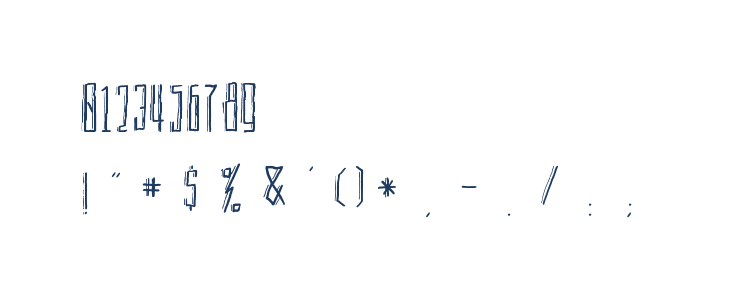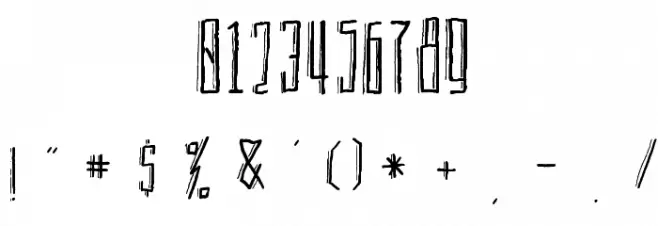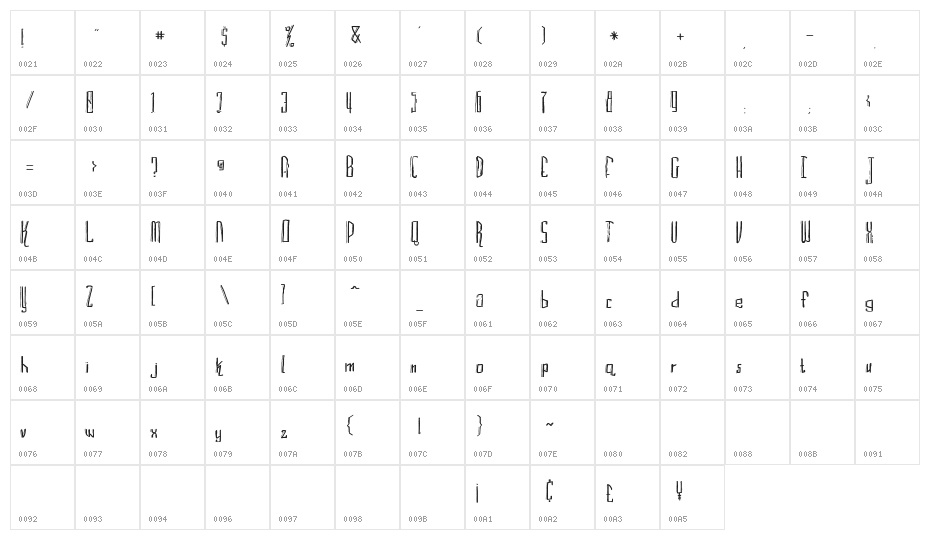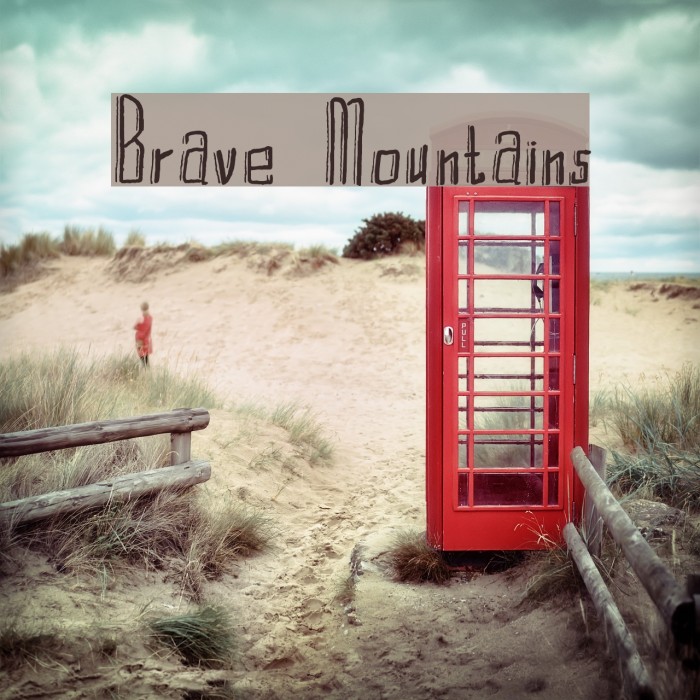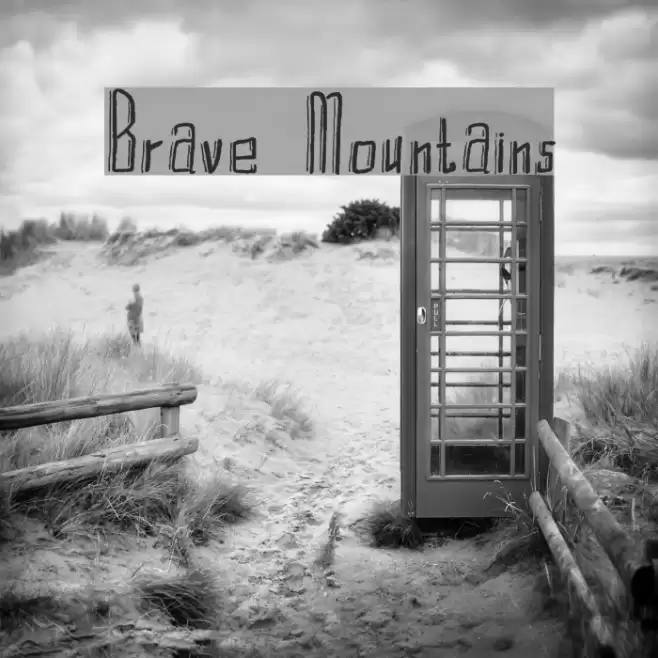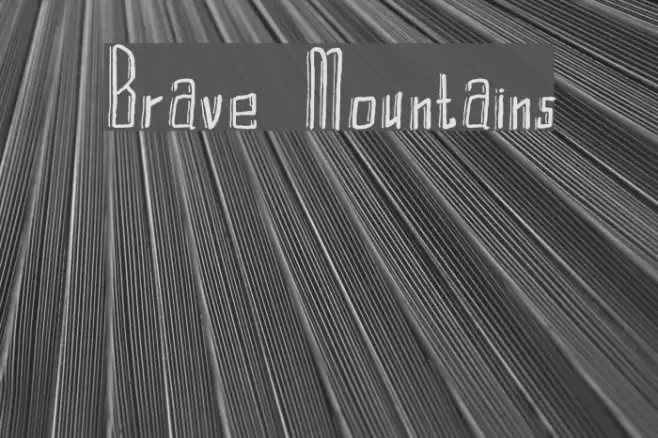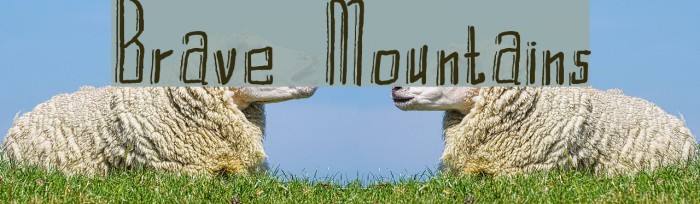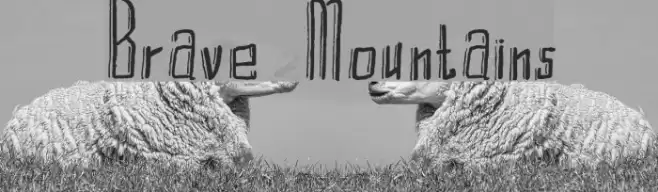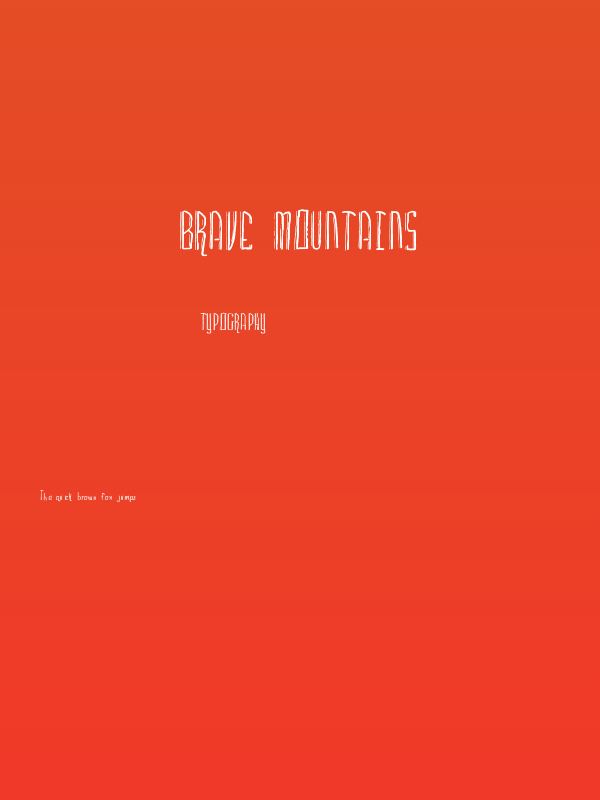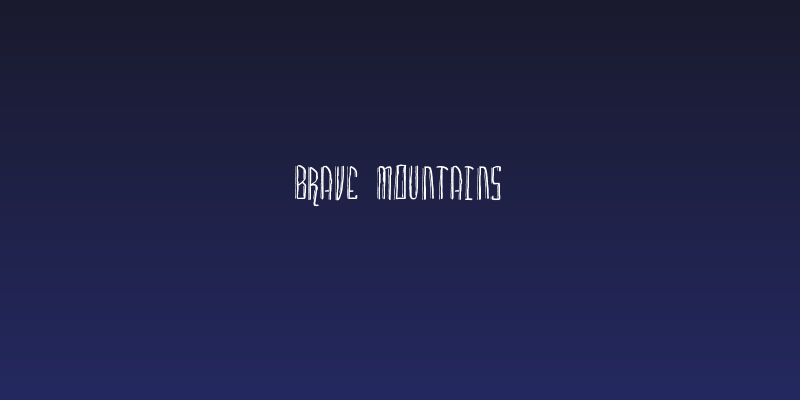
Brave Mountains Font
Brave Mountains Description
This font features a rugged, hand-drawn aesthetic with uneven lines and a slightly distressed appearance, giving it a unique and organic feel. The uppercase letters are tall and narrow, while the lowercase letters maintain a consistent style, adding to the font's cohesive look. Numbers and special characters follow the same design principles, ensuring a harmonious overall appearance. The font's irregular strokes and textured finish evoke a sense of adventure and wilderness, making it ideal for projects that require a touch of nature or a rustic vibe.
| Overall Style | Rustic, Organic, Adventurous |
| Proposed Projects | Ideal for outdoor-themed branding, adventure posters, rustic wedding invitations, or nature-inspired packaging. |